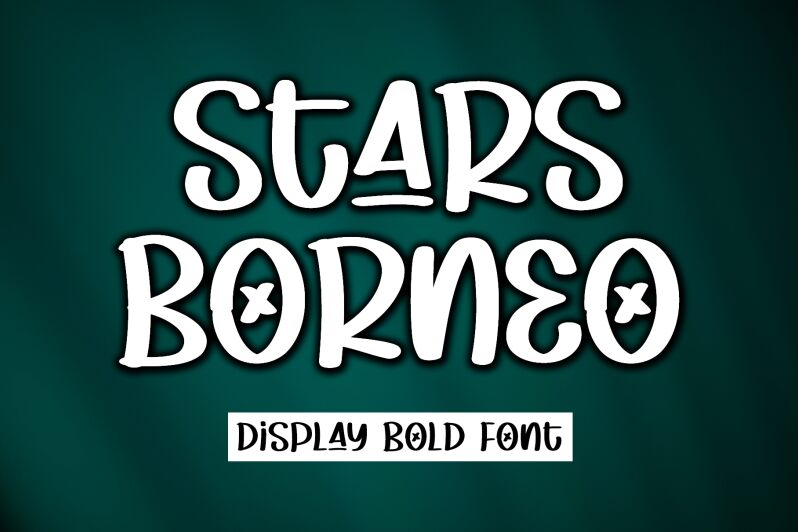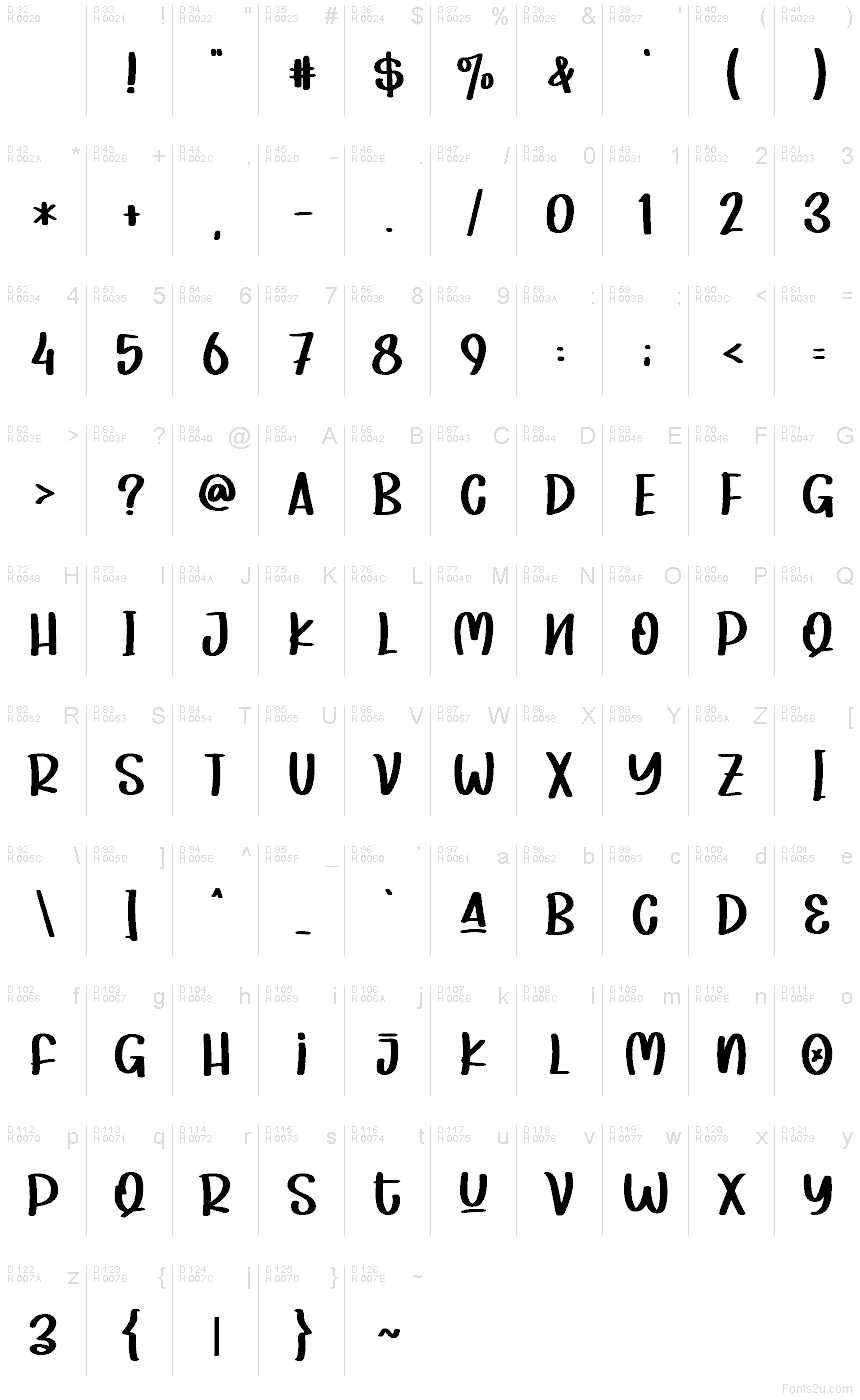
Stars Borneo - Personal Use
Stars Borneo font by Letterafa Studio is a free brush font that looks like it was painted in quick, confident strokes, then sprinkled with a little magic. The tall, narrow letters dance closely together, while the quirky star shapes tucked inside the counters give it a hand-drawn, celestial vibe. It feels energetic yet friendly, with inky, slightly rough edges that keep it from ever looking stiff or generic.
Using Stars Borneo, you can bring a fun, handmade spark to kids’ posters, birthday invitations, YouTube banners, merch designs, event flyers, and playful logo marks. This free font thrives in big, loud titles where those star-filled forms can really shine. Pair it with a clean, geometric sans serif in small text to keep your layouts readable while letting Stars Borneo handle the personality and punch.